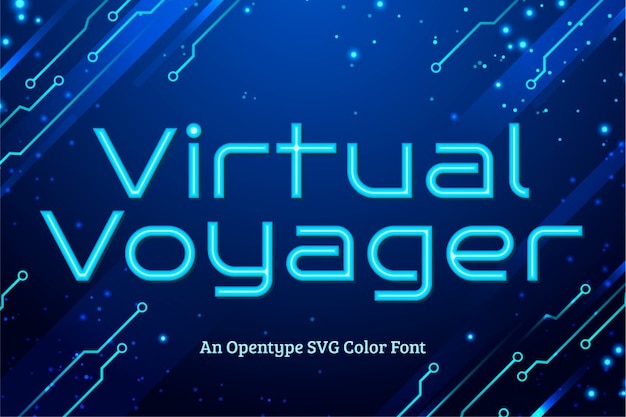
Virtual Voyager Font propels designs into a futuristic realm with bright, neon-infused letters. Its vibrant design exudes a sense of forward motion, perfect for futuristic themes. Ideal for designs seeking a font that illuminates with a neon glow, encapsulating a dynamic and futuristic aesthetic.